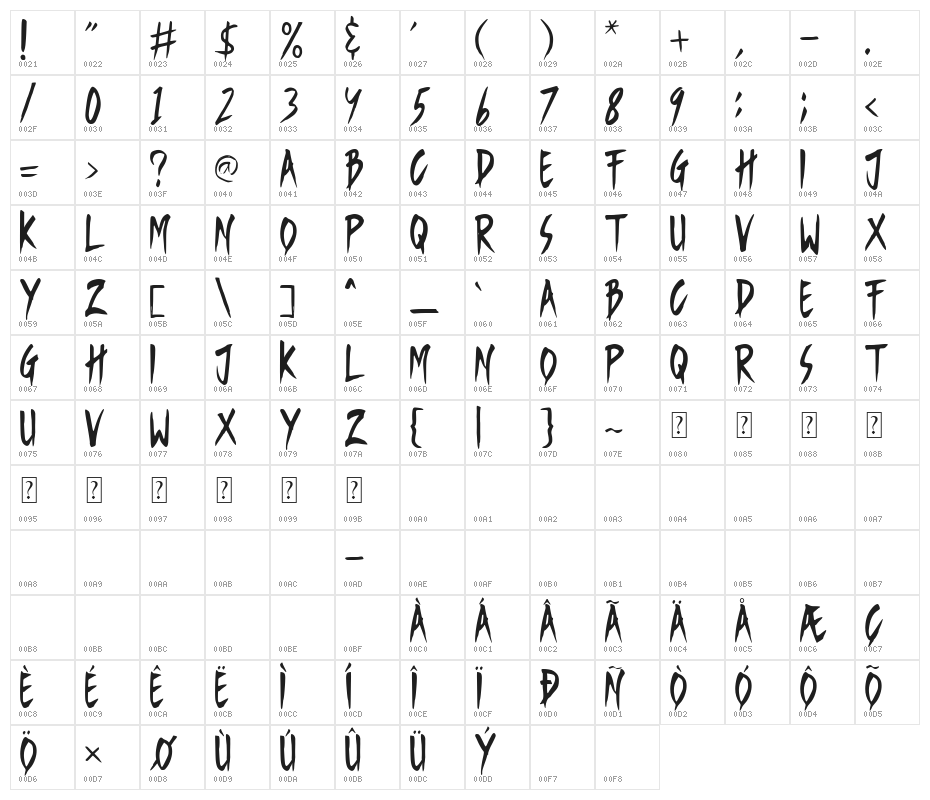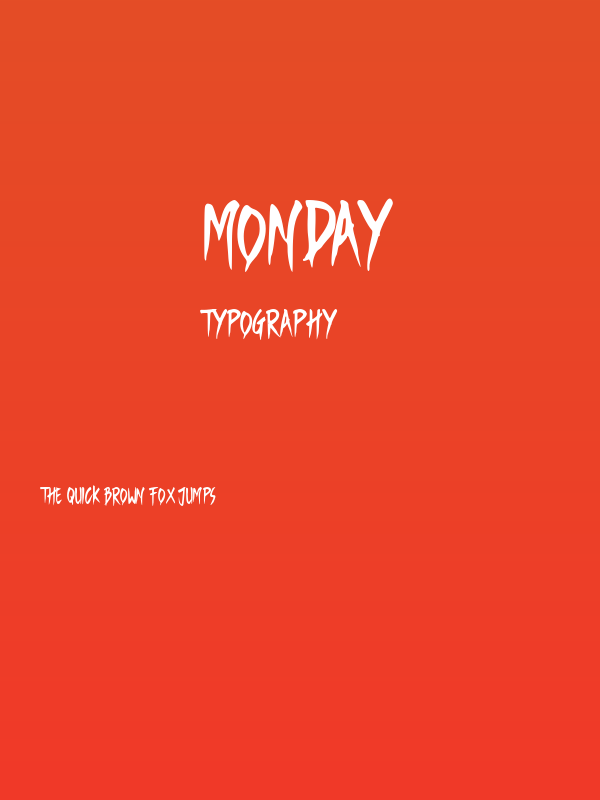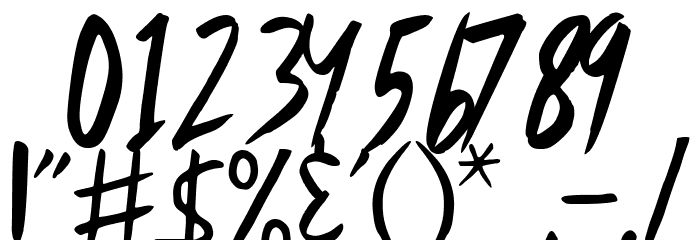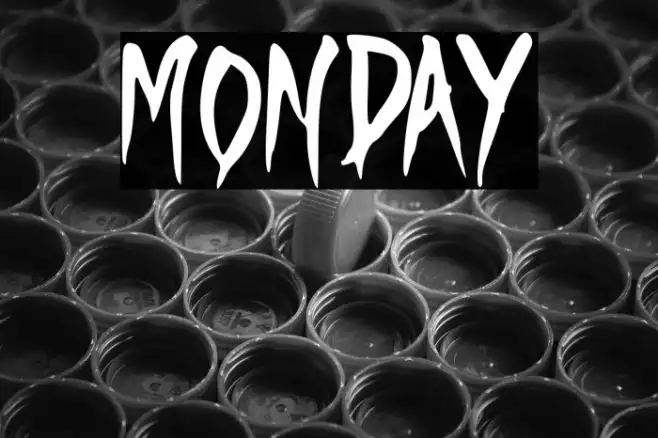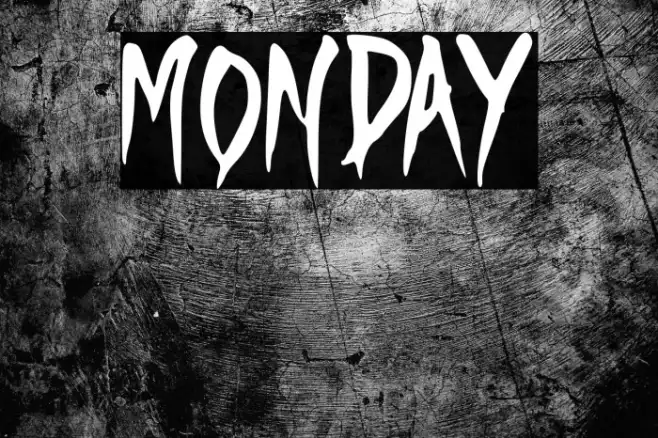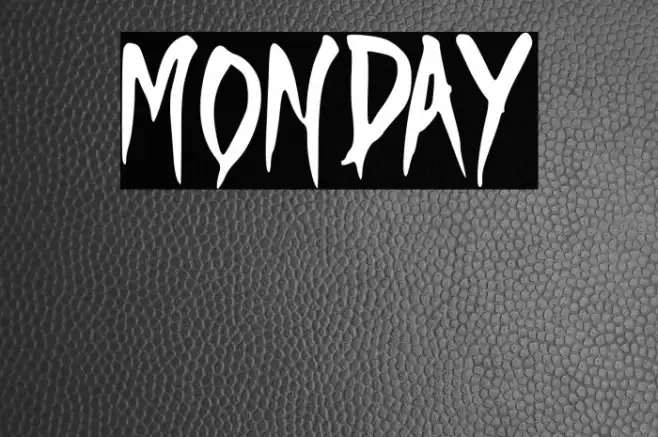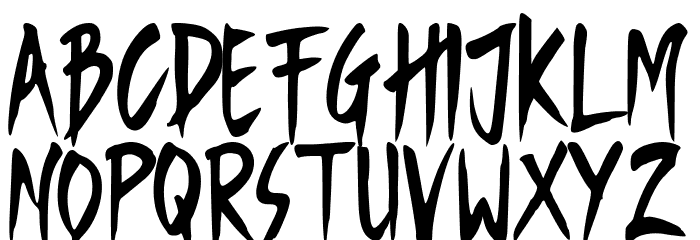
Monday Font
Monday Description
This font exhibits a bold, energetic style with a handwritten appearance. The letters are characterized by their dynamic strokes and slightly irregular shapes, giving them a lively and informal feel. The uppercase and lowercase letters maintain a consistent style, with the uppercase being slightly more exaggerated in form. Numbers and special characters follow the same energetic design, ensuring a cohesive look across all elements. The font's playful nature makes it ideal for projects that require a personal touch or a sense of spontaneity.